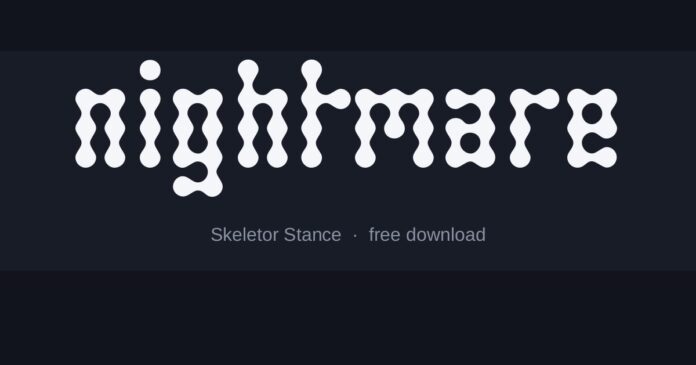
The Nightmare Before Christmas Font
What font is the The Nightmare Before Christmas logo?
Hand-drawn lettering with a deliberate wobble — letters that lean at different angles, sit at different heights and taper to thin points, matching the film’s crooked architecture.
Nothing about it is regular, which is exactly why a clean font never reads right no matter how spooky the styling.
The fonts here
• Skeletor Stance is the closest — thin, spiky and irregular, with the same nervous line.
• Ghostmeat is rounder and more cartoonish, better for something aimed at children.
• Riot Act 2 is rough and distressed, useful when you want the Halloween half more than the Christmas half.
Where the style comes from
The film’s design is built on tilted verticals and spirals — almost nothing in Halloween Town stands straight. The lettering follows the same rule, which is why irregularity matters more than any particular letter shape.
A font can only imitate that so far, since a typeface repeats the same A every time. Varying the size and baseline of individual letters by hand gets you closer than switching fonts.
Setting it well
• Nudge individual letters up, down and off-vertical — evenness is the thing that breaks the effect
• Orange and purple on black is the film’s palette; black on white reads as generic Halloween
• Let ascenders and descenders collide slightly rather than leaving a tidy gap
Is this the exact font used for The Nightmare Before Christmas?
Not exactly. The original lettering was custom drawn or is not publicly licensed, so the fonts here are close recreations. Skeletor Stance is the nearest match we have found.